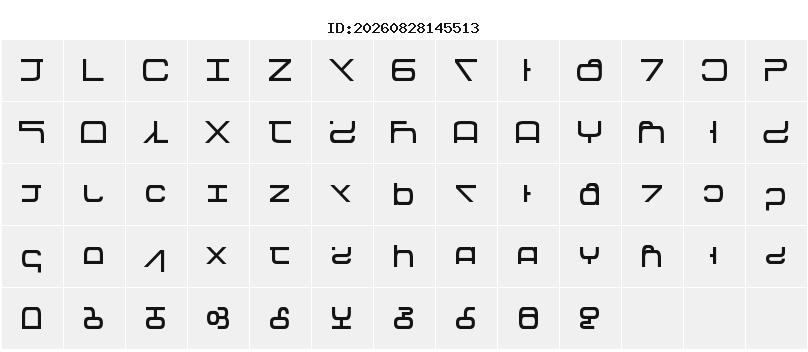
• Font Name: Tirolese
• Full Font Name: Tirolese
• Version: Version 1.00 May 11, 2013, initial release
• Designer: Neale Davidson
About Tirolese.ttf
Tirolese.ttf is a modern, elegant sans-serif font designed for ultimate readability and visual harmony. Perfect for branding, headlines, web design, and print materials.